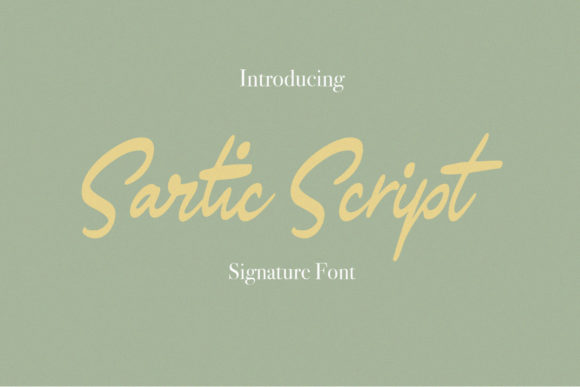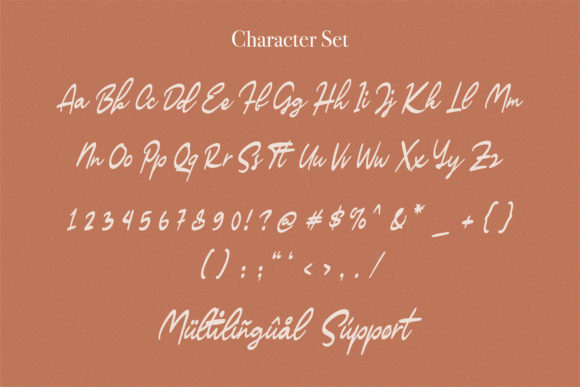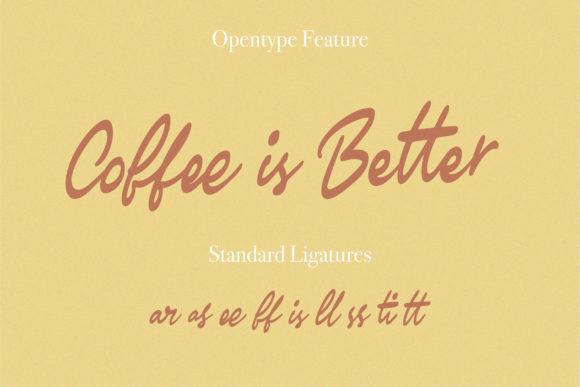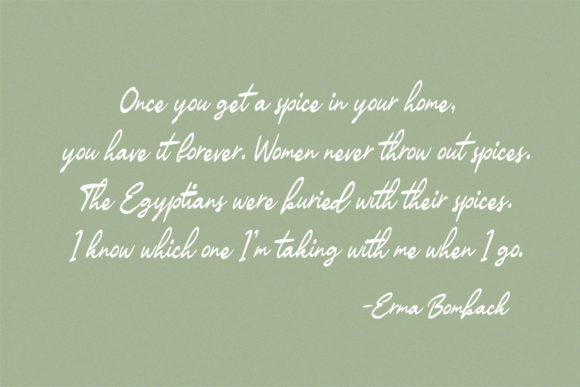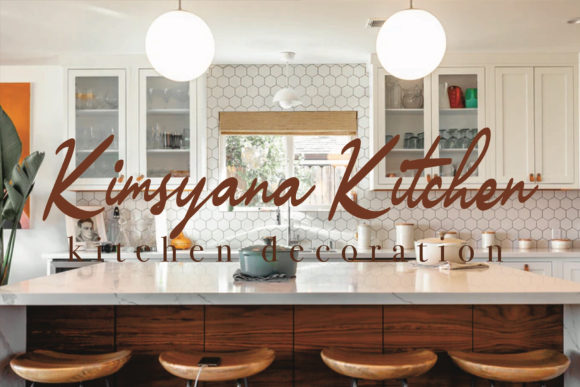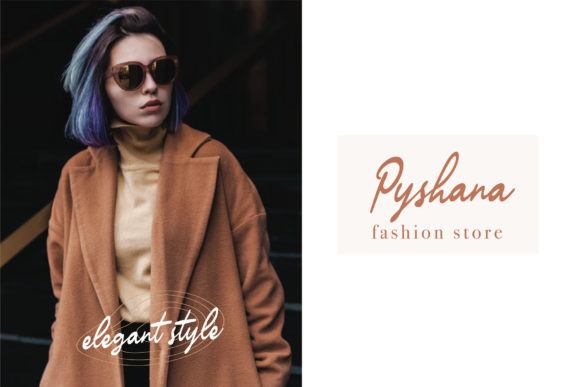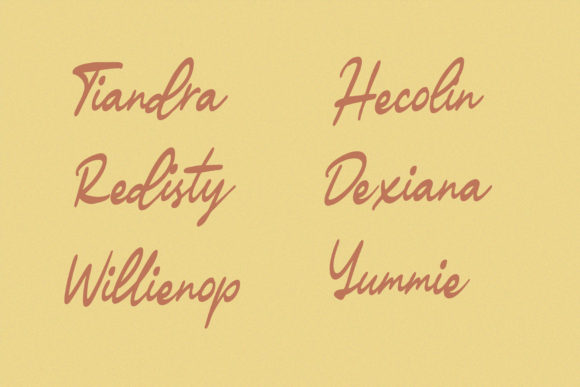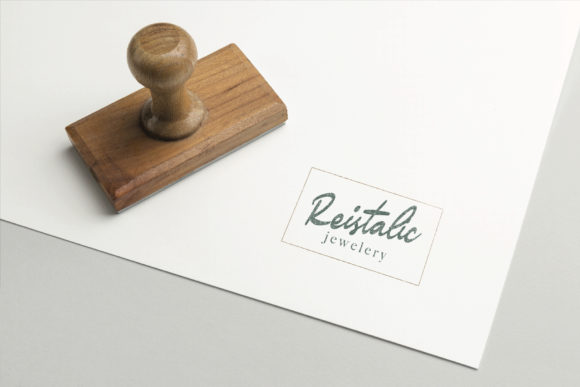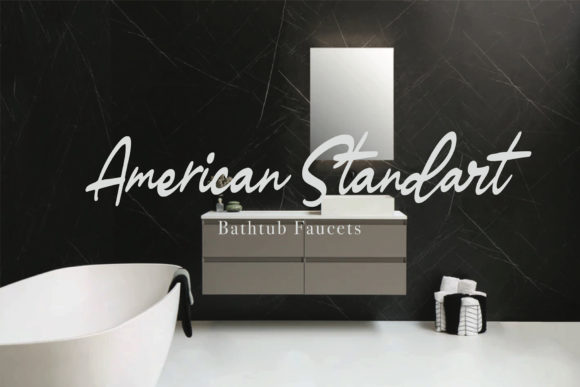
Sartic Script Font
About Sartic Script Font
Sartic Script is a classy handwritten font that is perfect for branding, social media headers, product packaging, wedding invites and more! This font is completely hand-drawn and contains ligatures to perfectly re-create natural handwriting.